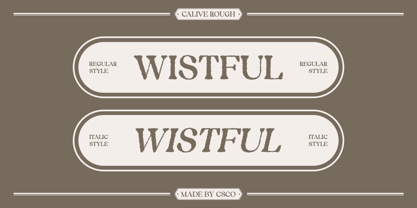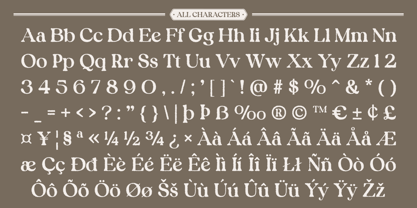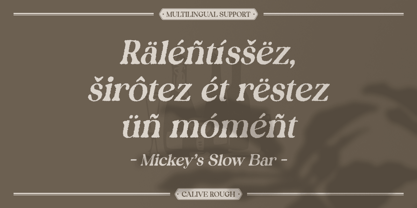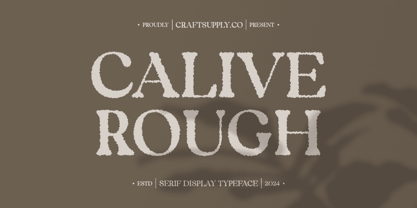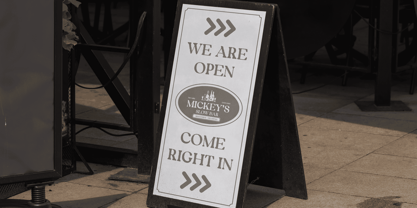
Calive Rough
by Craft Supply Co
The Calive Rough Font Family was designed by Trio Nazzar Saputra, Wahyu Hadi Yuana and published by Craft Supply Co. Calive Rough contains 2 styles and family package options.
Calive Rough Font: A Nostalgic Serif Font with Vintage Charm
Classic Elegance with a Retro Vibe
Calive Rough is a classic serif font that beautifully marries traditional design elements with a distinctive retro vibe. Its bold lines and elegant ornamental details evoke a sense of nostalgia, reminiscent of vintage signage and classic print. Each letter embodies a timeless quality that appeals to both contemporary and traditional aesthetics, making it an excellent choice for a variety of creative projects.
Distinctive Vintage Touch
The unique rough effect applied to Calive Rough enhances its character, creating a charming yet imperfect appearance that sets it apart from more polished fonts. This texture adds depth and dimension, giving each letter a tactile quality that invites the viewer to explore the design. The roughness infuses the font with a sense of authenticity and uniqueness, making it particularly well-suited for projects that seek to evoke a genuine and heartfelt connection.
Versatile for Creative Applications
Calive Rough shines in various design applications, including posters, packaging, and branding. Its retro aesthetic makes it ideal for projects that celebrate classic appeal, whether for vintage-themed events, artisanal products, or contemporary brands looking to tap into nostalgia. This font can effortlessly convey messages of warmth and familiarity, drawing in audiences and creating a lasting impression.